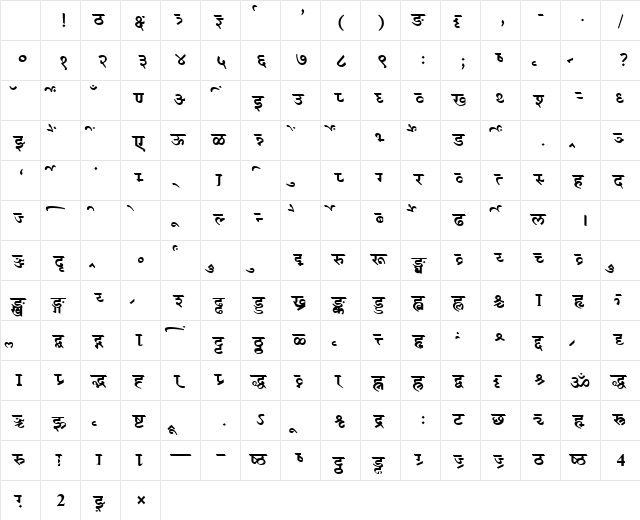
Complete AkrutiDevVidya Outline glyph index. Displaying only characters natively supported by AkrutiDevVidya Outline font.
AkrutiDevVidya is built around its visual character rather than neutral utility - its distinctive forms are designed to make an impression at display sizes.
Font Pairing: Pair with a clean neutral sans-serif for body copy to let AkrutiDevVidya's character lead without overwhelming the composition.
Pro Tip: Use AkrutiDevVidya exclusively at display sizes - it was designed to be seen, not read at length. Let a neutral companion handle body copy.